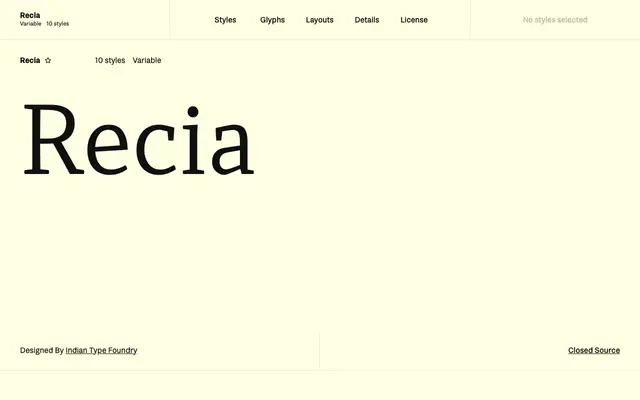
Recia
A contemporary serif from Indian Type Foundry with wedge-shaped serifs, a high x-height and true italics, designed for demanding text settings.
Designed by Carlos De Toro as his debut with ITF, Recia is a contemporary serif built for continuous reading in conditions where sturdy letterforms are needed, such as low-quality print. Stroke contrast is deliberately restrained in lighter weights but becomes more legible in Bold, while the thicker strokes remain chunky throughout. The five italic styles are true italics with a cursive structure, and the family includes proportional oldstyle figures as the default numeral style via OpenType.
Classified as serif on Fontshare; features wedge-shaped serifs, high x-height, slightly condensed proportions and low stroke contrast, placing it in the contemporary or transitional serif camp rather than a classical oldstyle.